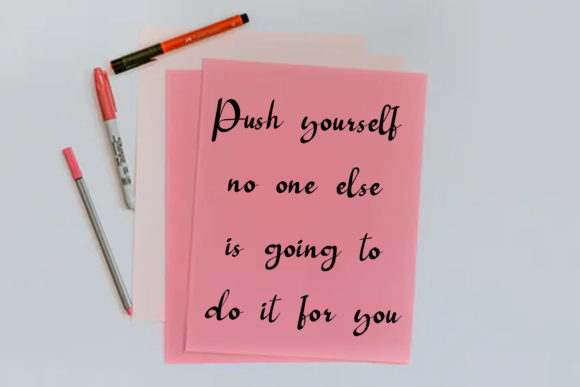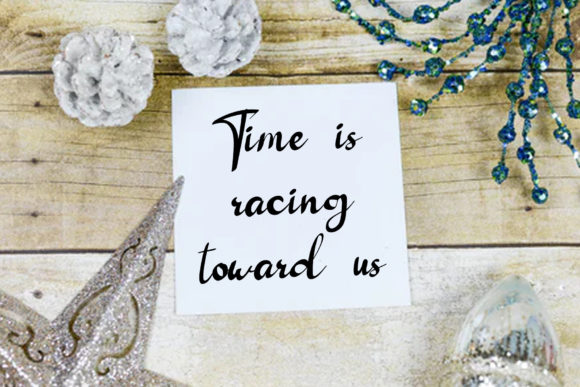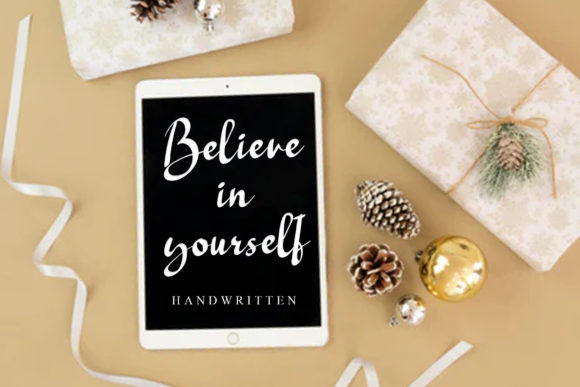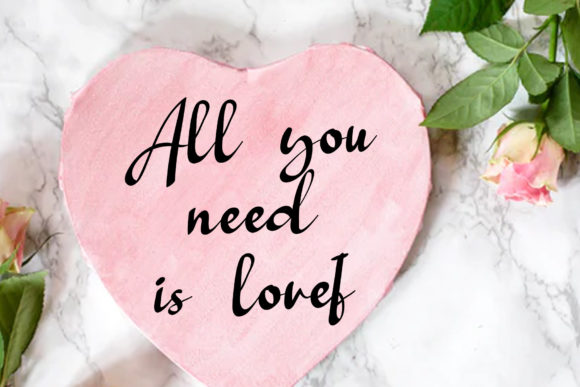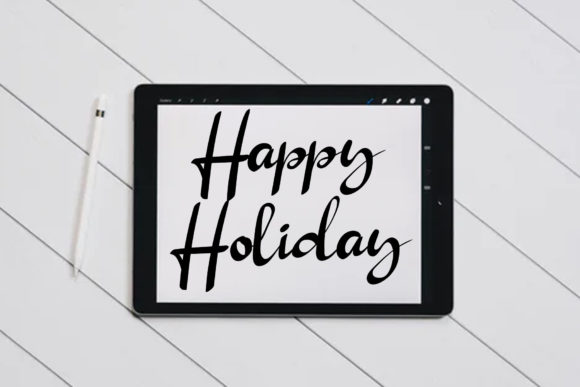
Signature Darelina Font
About Signature Darelina Font
Signature Darelina is an exquisite handwritten font created in a stylish matter for a spectacular effect! It is perfectly suitable for projects that require a unique and authentic look!